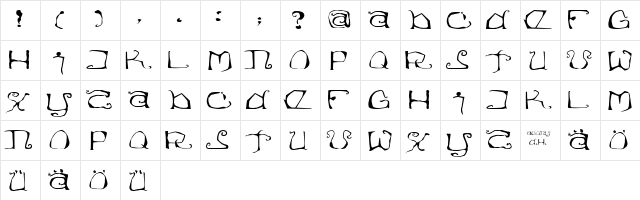
Eisregen Regular
Design Context for Eisregen Typeface
Eisregen is a composed and adaptable typeface that performs quietly and consistently across a wide range of design contexts.